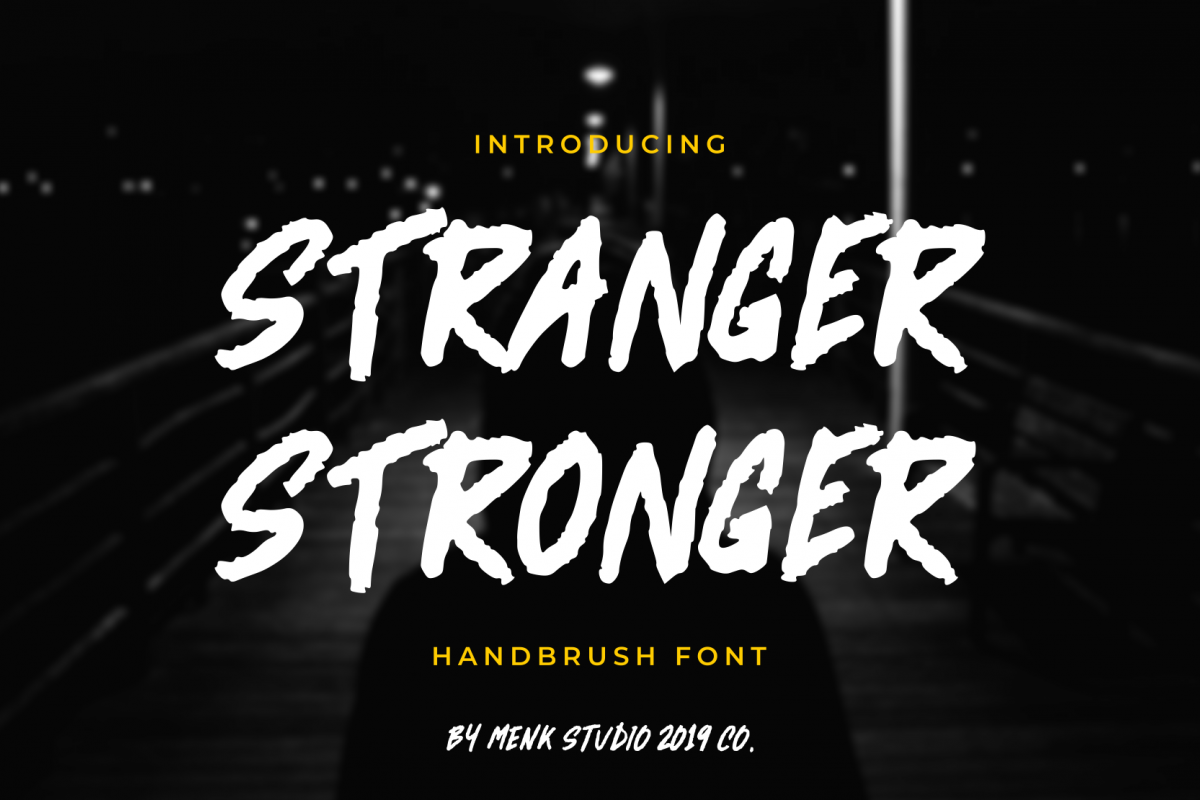
Stranger Stronger
Stranger Stronger font is handwritting brush font. This made by manual broken marker, so the brush is very natural. Stranger Stronger font is very suitable for your work (Logo, branding, clothing, poster and others )